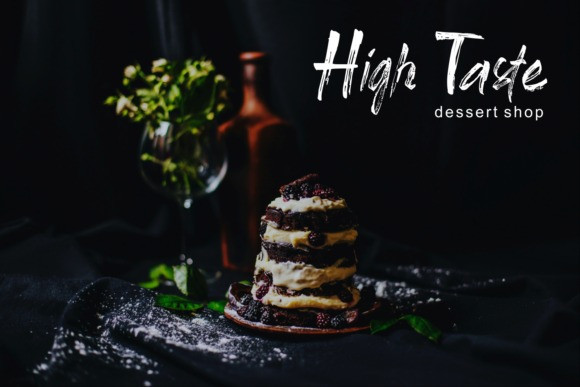
Brushbress Font
Brushbress Brush Font
It’s a modern brush font created by zamjump with authentic and casual feels. This font has been designed to suit a variety of projects such as business branding, Instagram quotes, blog headers, fashion apparel, sports communities, film, photography, hobbies and much more. This font is PUA encoded which means you can access all of the glyphs and swashes with ease!